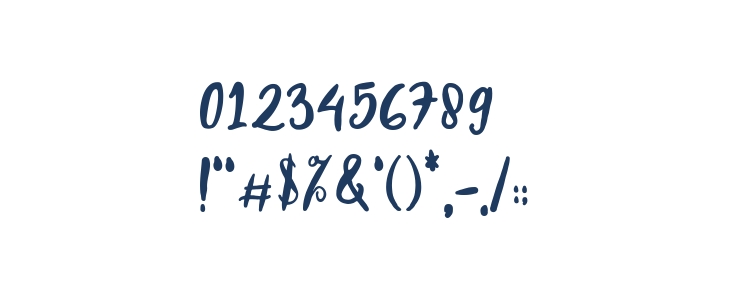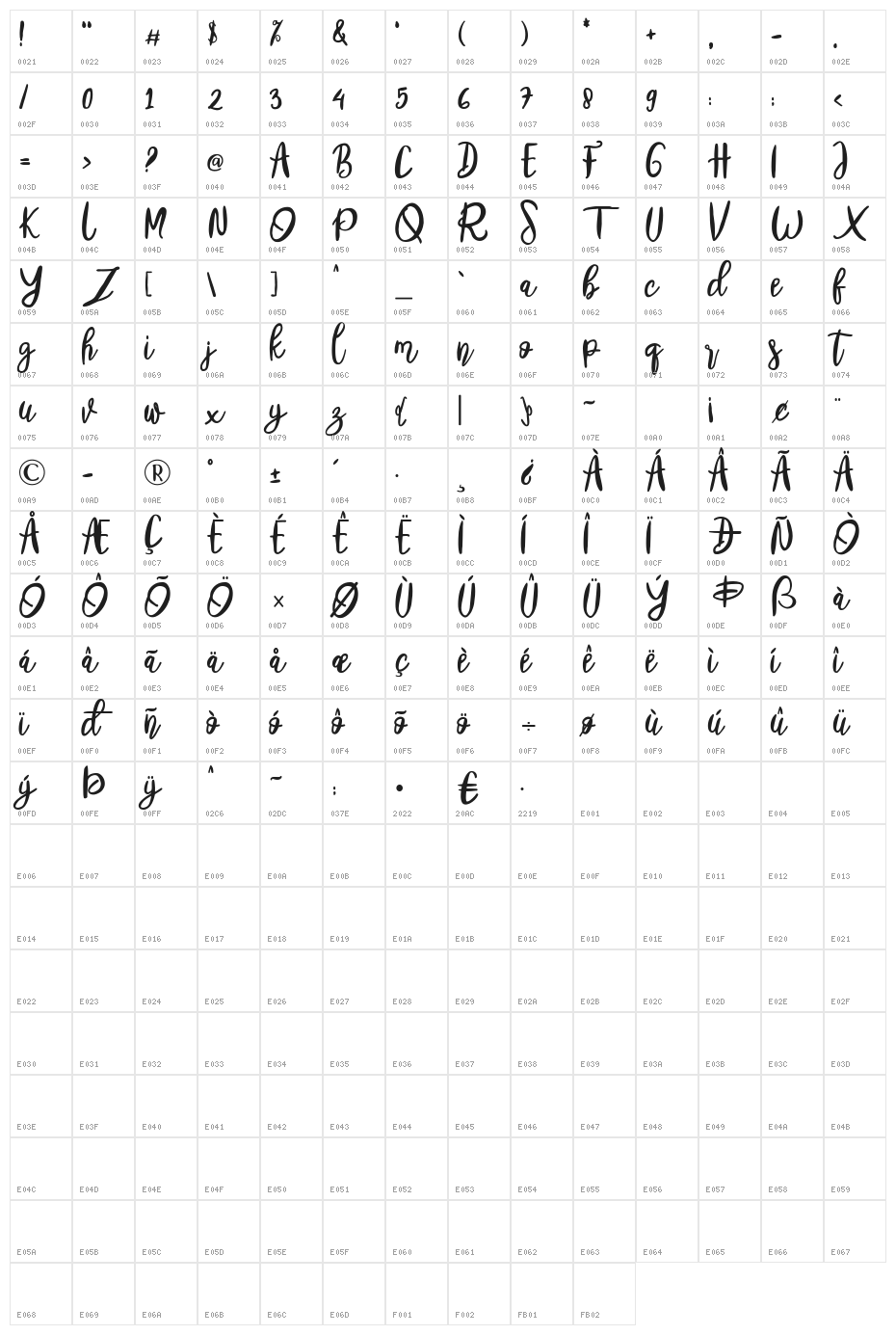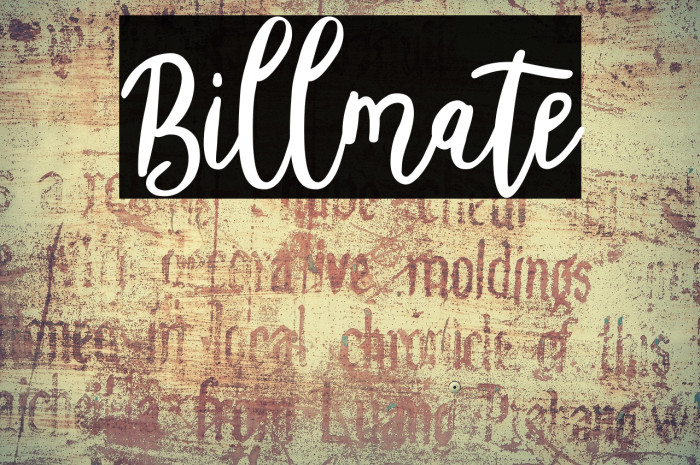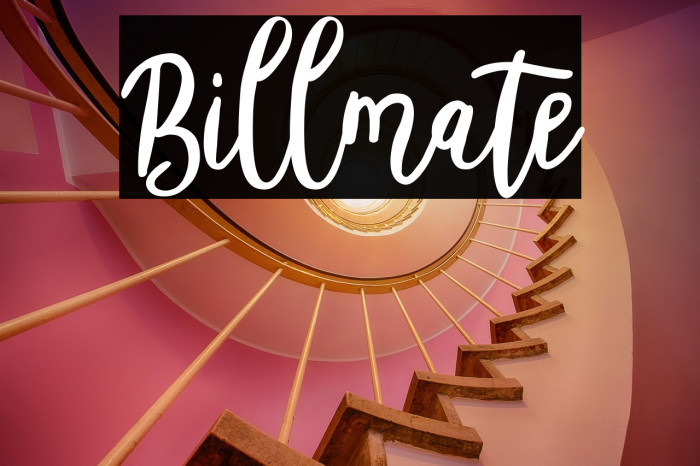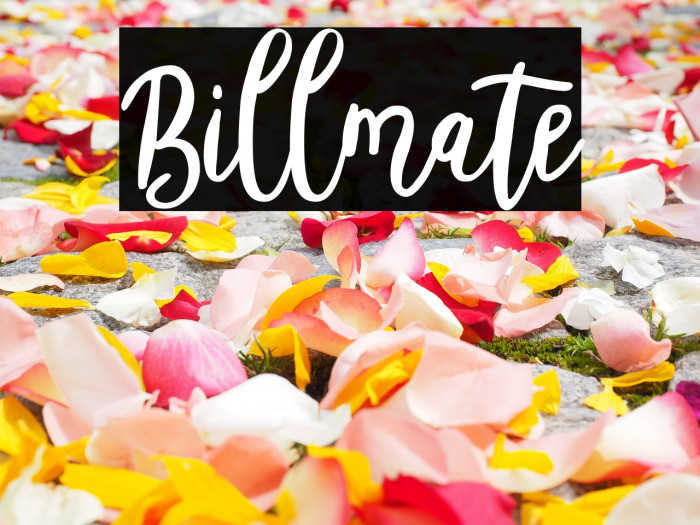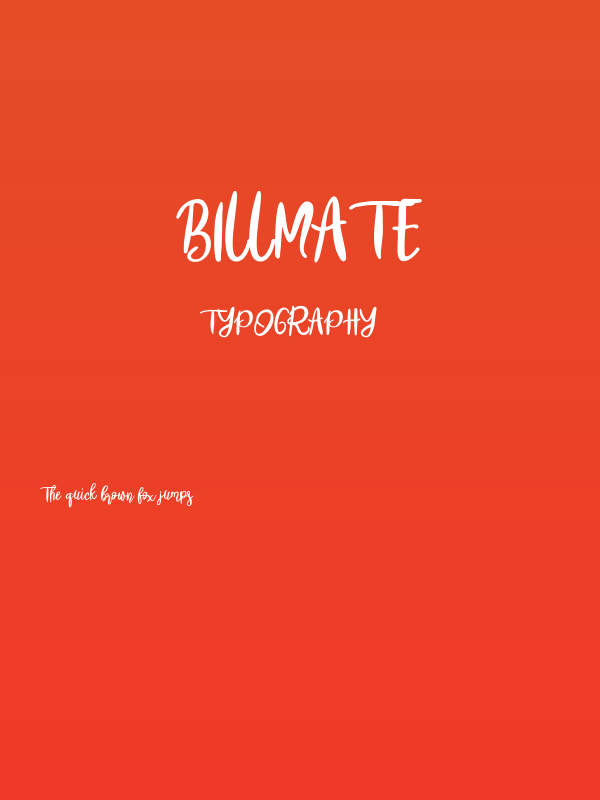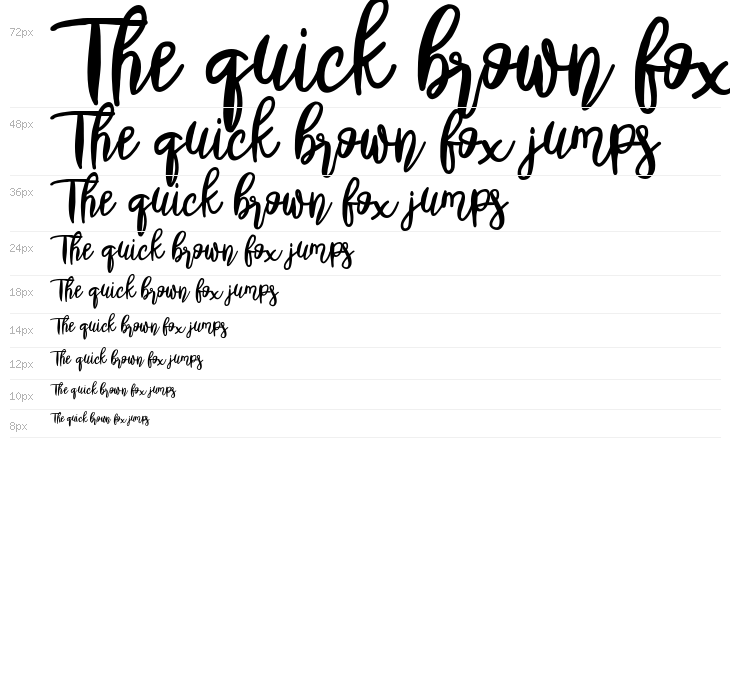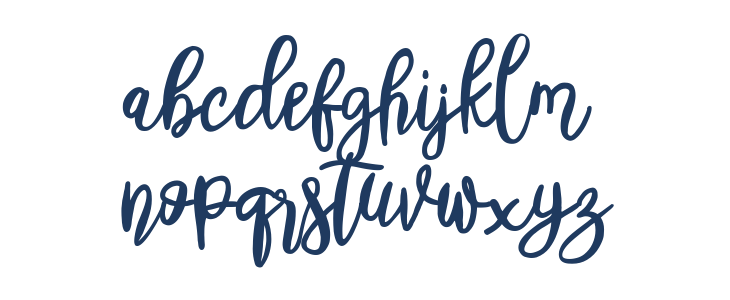
Billmate Font
Billmate Description
This font features a lively and dynamic handwritten style, characterized by its fluid and cursive letterforms. The uppercase and lowercase letters exhibit a playful yet elegant appearance, with smooth curves and varying stroke widths that add a sense of movement and personality. The numbers and special characters maintain this cohesive style, ensuring versatility across different uses. The font's organic flow and slightly irregular shapes give it a personal touch, making it ideal for projects that require a humanistic and approachable feel.
| Use Case | Logos, Headlines, Invitations |
| Proposed Projects | Ideal for greeting cards, invitations, personal branding, and creative projects that require a personal touch. |